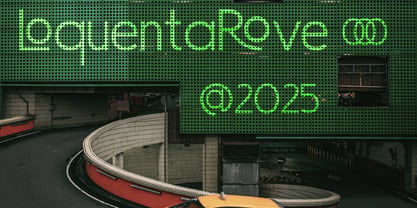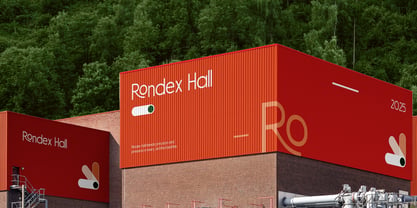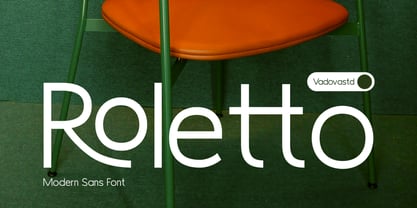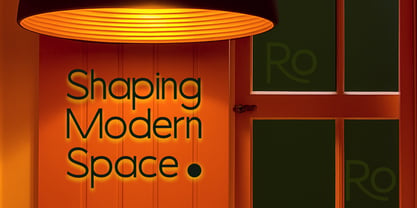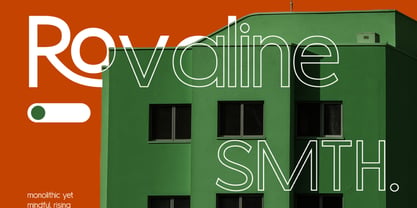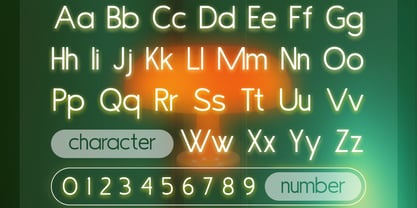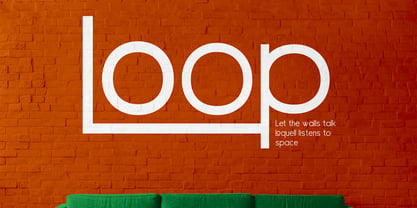
Roletto
Roletto is a modern geometric sans serif font featuring clean monoline strokes, balanced proportions, and smooth rounded curves. Inspired by contemporary architecture and minimal interior aesthetics, it delivers a confident yet calm visual tone. The typeface includes uppercase, lowercase, numerals, and punctuation with consistent spacing for strong readability across headlines and body text. Roletto is highly relevant for modern branding projects, corporate identities, editorial layouts, architecture presentations, and lifestyle campaigns that require a clean and confident look. It works seamlessly for logos, posters, social media graphics, website headers, packaging, and creative portfolios where clarity and modern sophistication are essential.